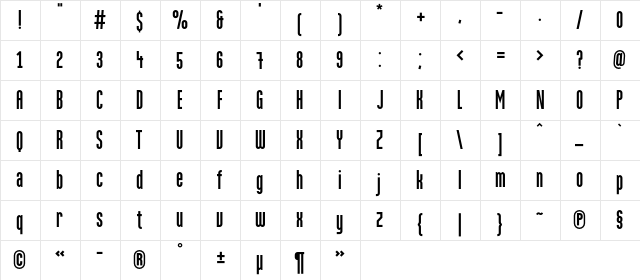
Marten-GrotesqueC Regular
Design Context for Marten-GrotesqueC Typeface
Marten-GrotesqueC is a composed and adaptable typeface that performs quietly and consistently across a wide range of design contexts.